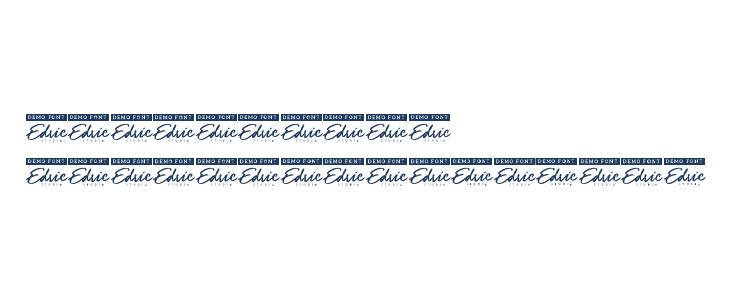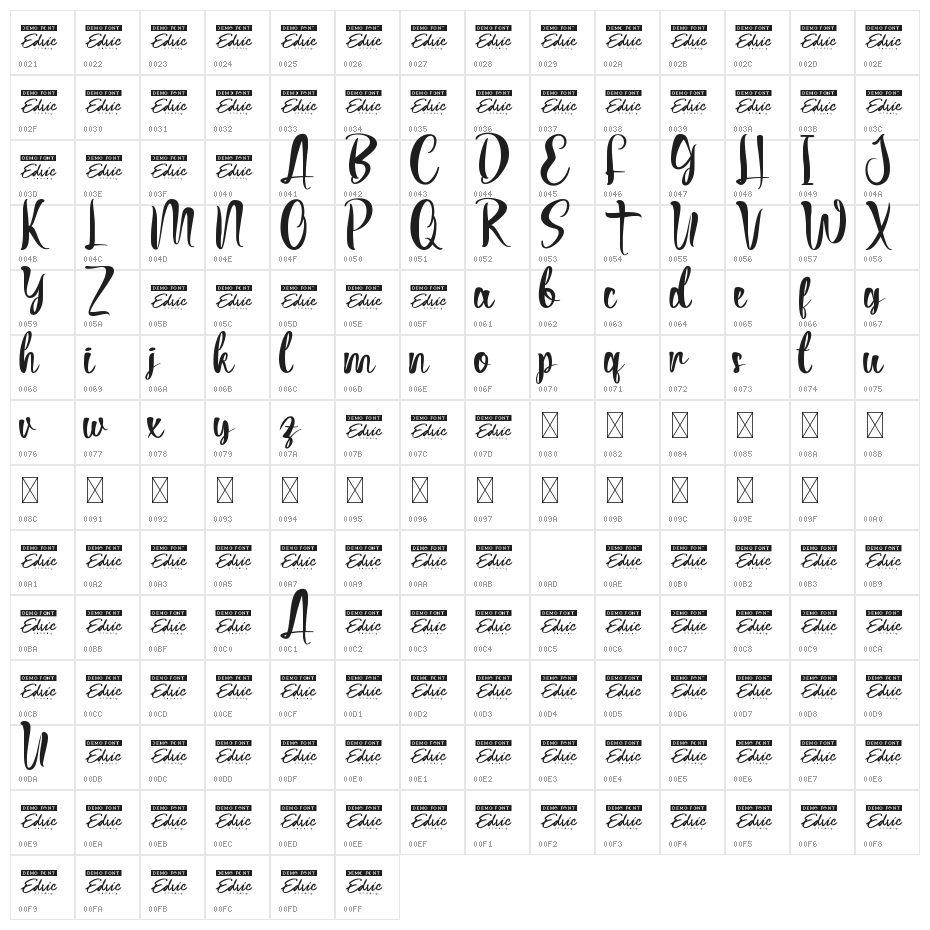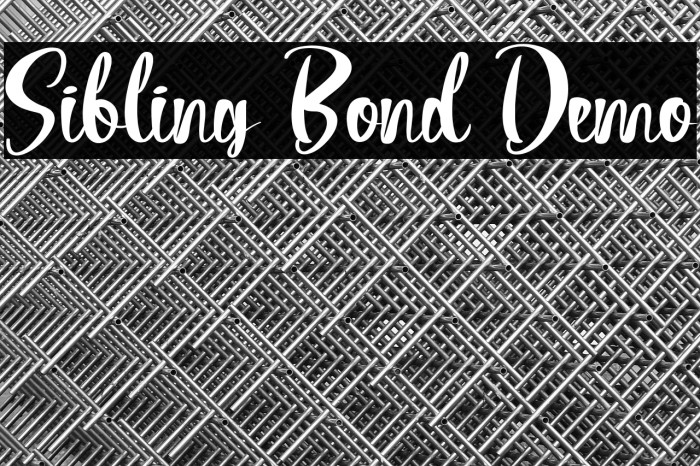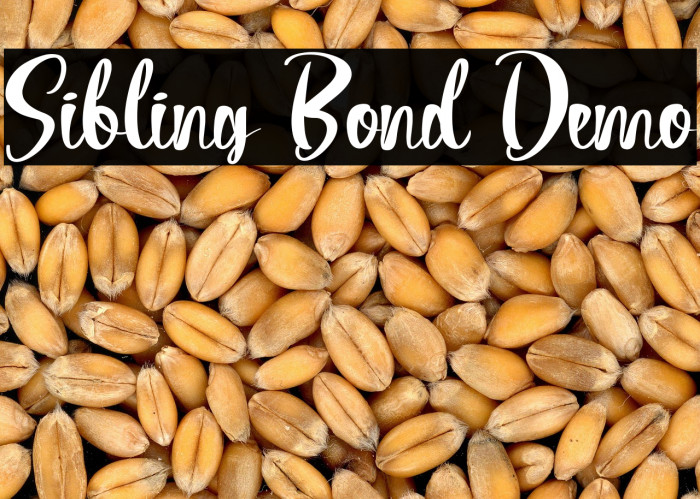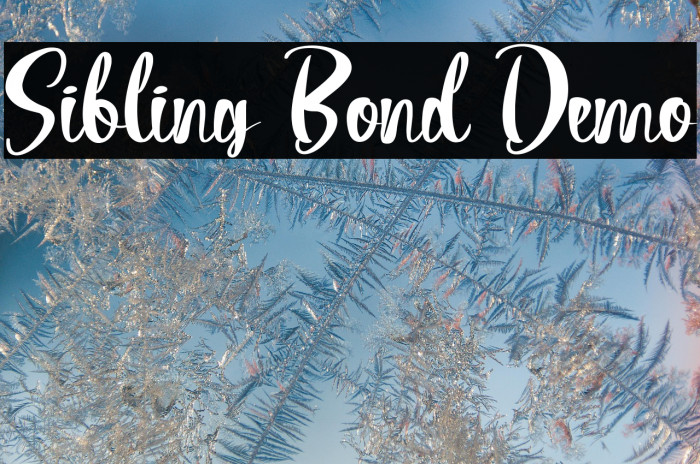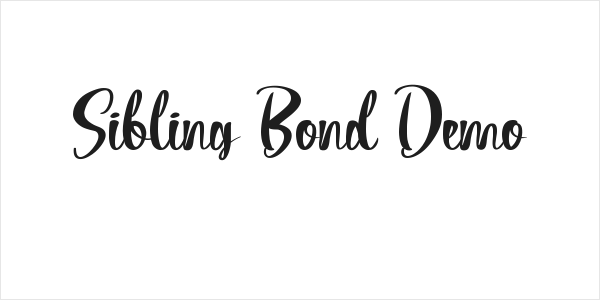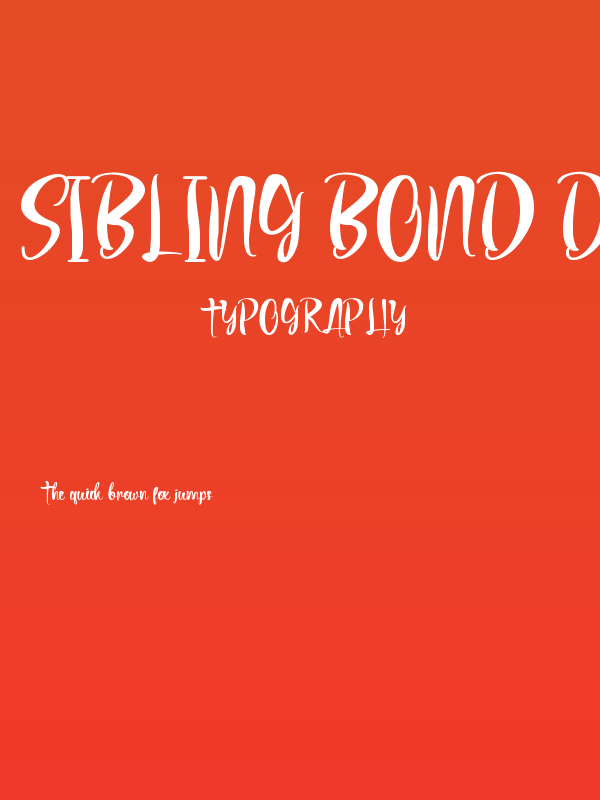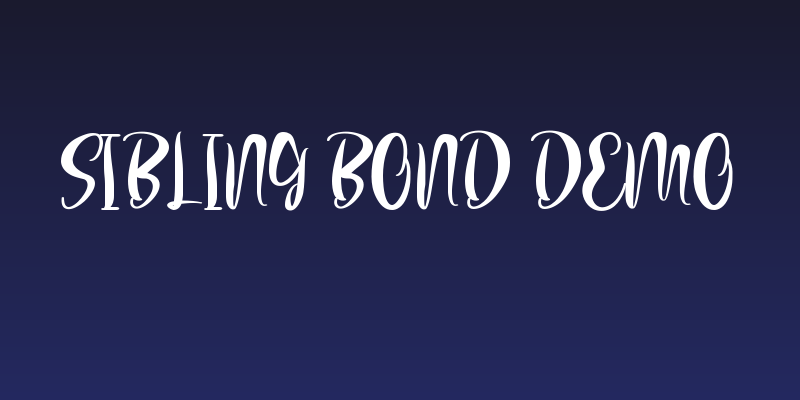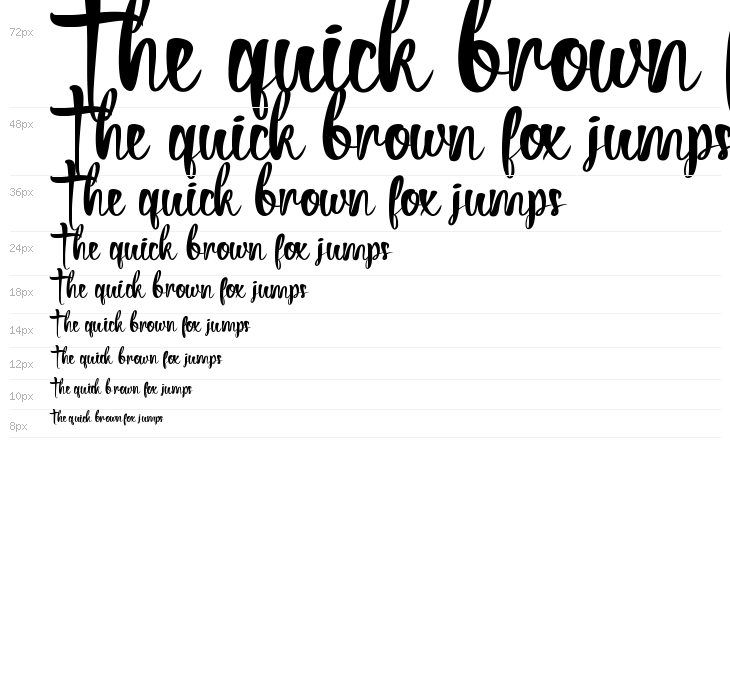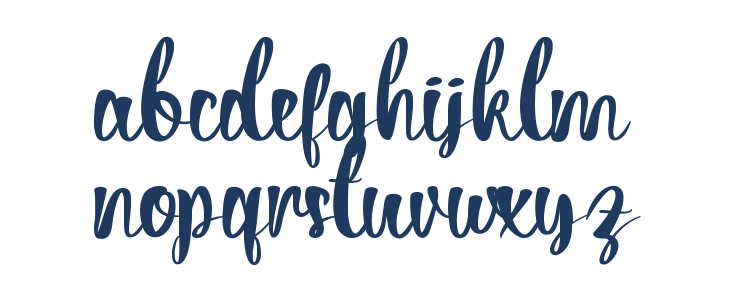
Sibling Bond Demo Font
Sibling Bond Demo Description
This font features a bold, expressive script style with a modern flair. The letters are connected in a fluid manner, creating a sense of movement and elegance. The uppercase letters are tall and slightly narrow, while the lowercase letters maintain a consistent flow with smooth curves and loops. The overall appearance is dynamic and artistic, making it suitable for creative and eye-catching designs. The font's strokes vary in thickness, adding a touch of sophistication and enhancing its visual appeal.